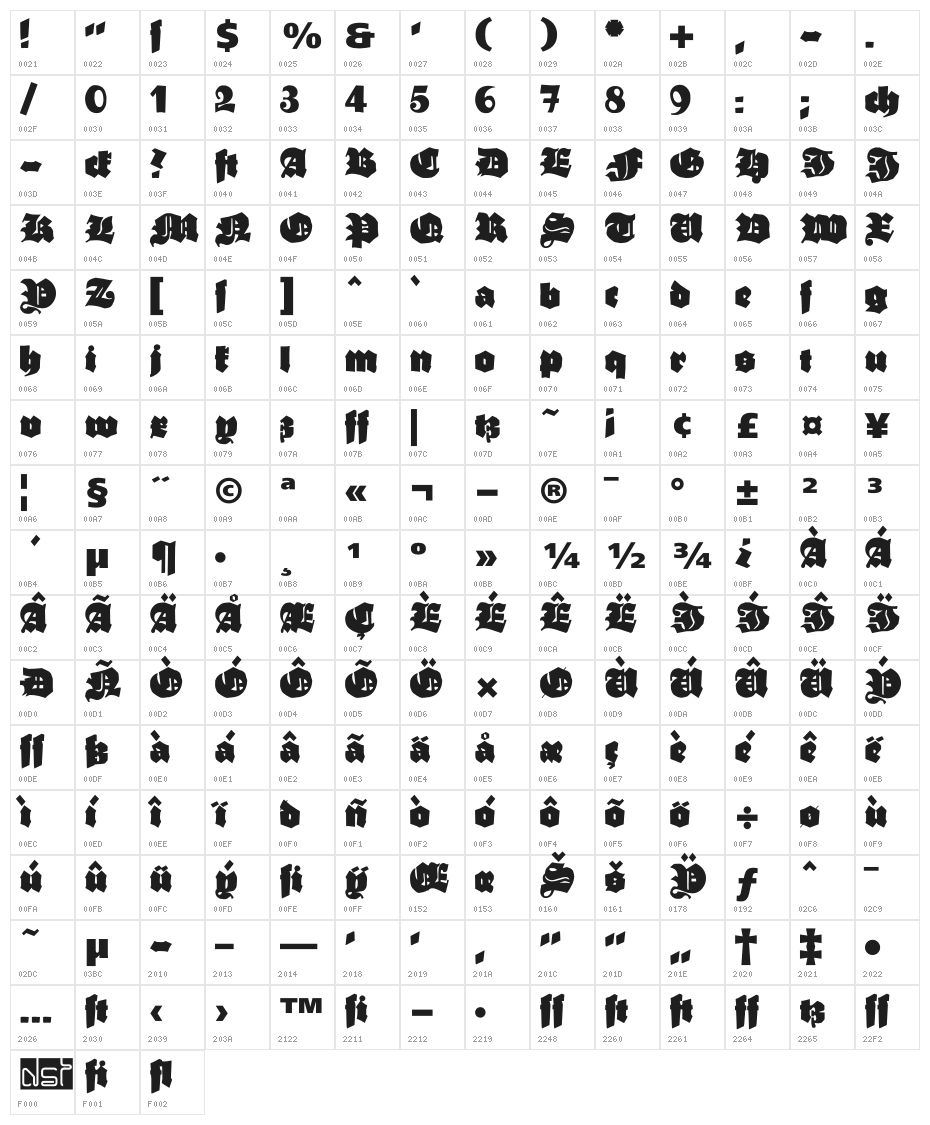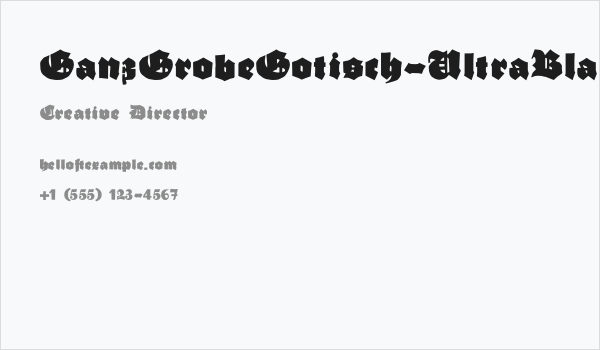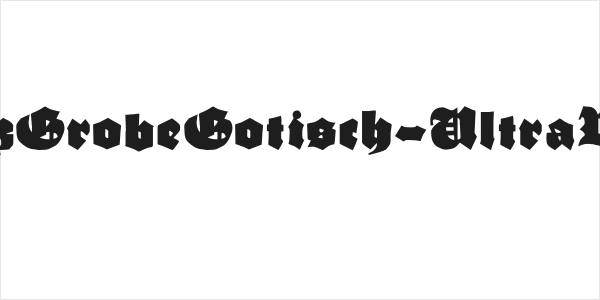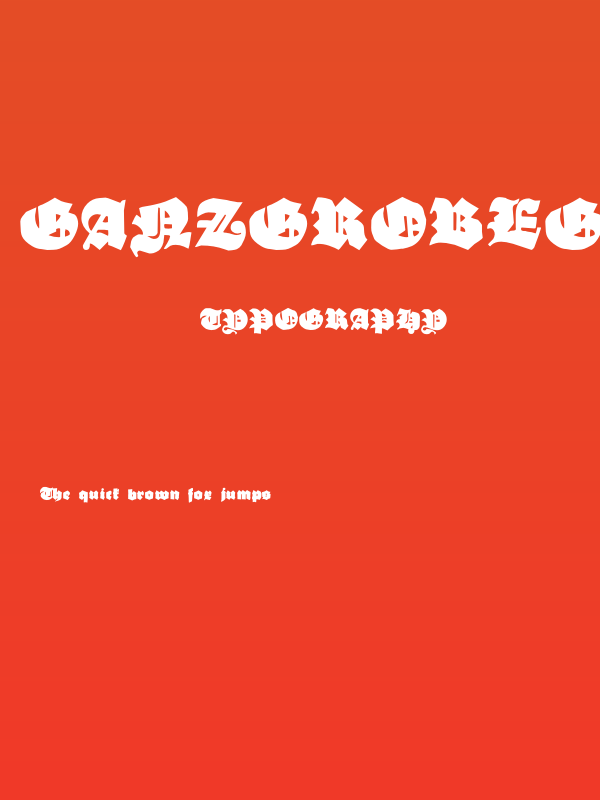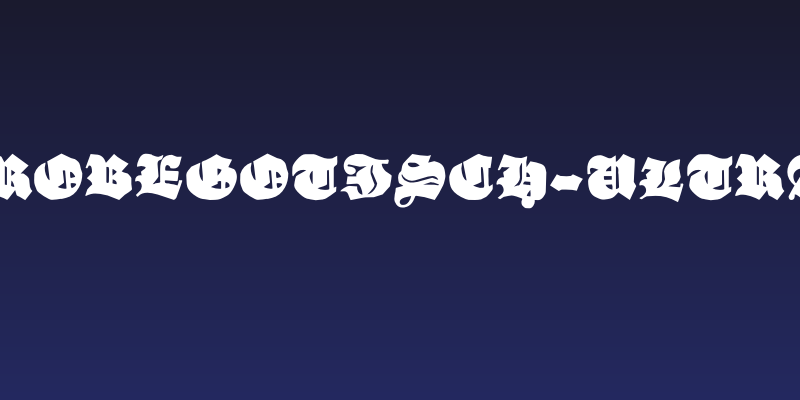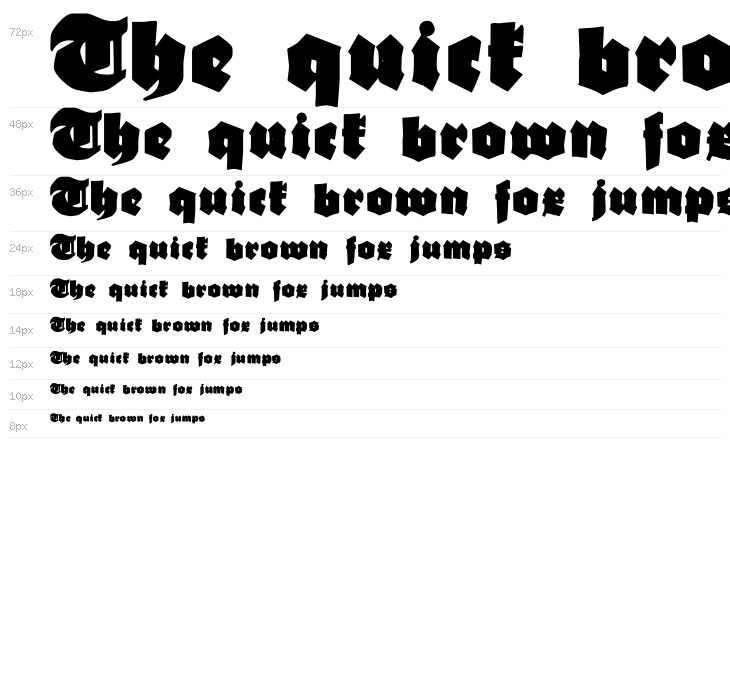
GanzGrobeGotisch-UltraBlack Font
GanzGrobeGotisch-UltraBlack Description
This font exudes a bold and dramatic presence, characterized by its intricate and angular letterforms typical of traditional Blackletter styles. The uppercase letters are particularly ornate, with sharp edges and elaborate serifs that create a sense of historical gravitas. The lowercase letters maintain this complexity, offering a cohesive look that is both striking and authoritative. The numerals and special characters follow suit, with a consistent weight and style that ensures readability while maintaining the font's distinctive aesthetic. This font is ideal for projects that require a touch of medieval or gothic flair, making it perfect for branding, posters, and other creative endeavors that seek to capture attention with a bold statement.
| Proposed Projects | Ideal for branding, posters, book covers, and any project seeking a gothic or medieval aesthetic. |